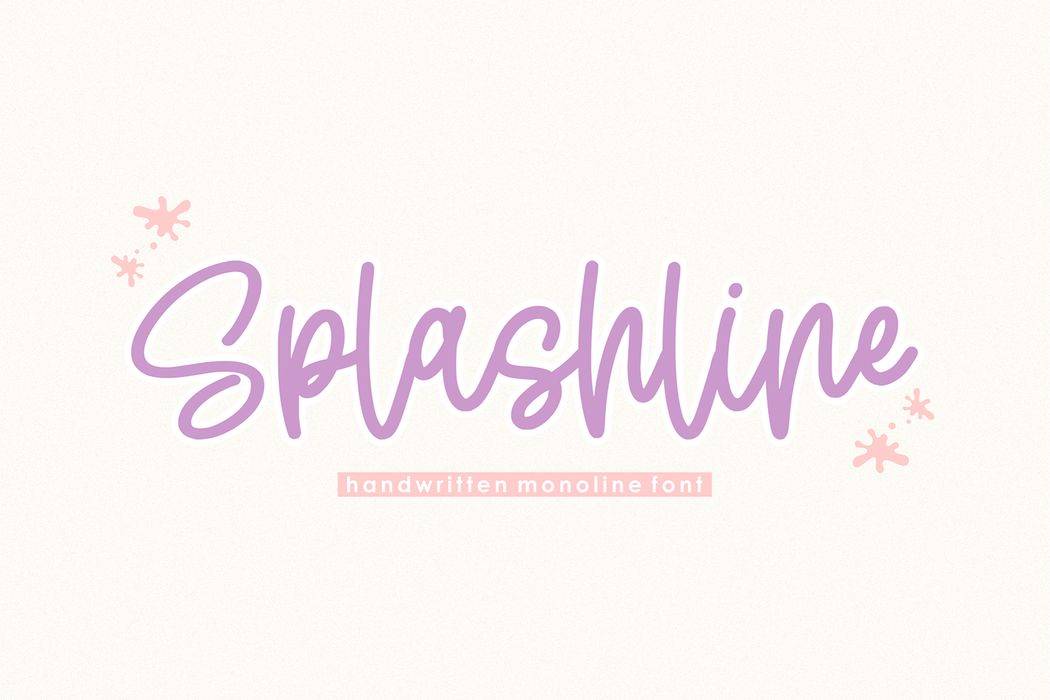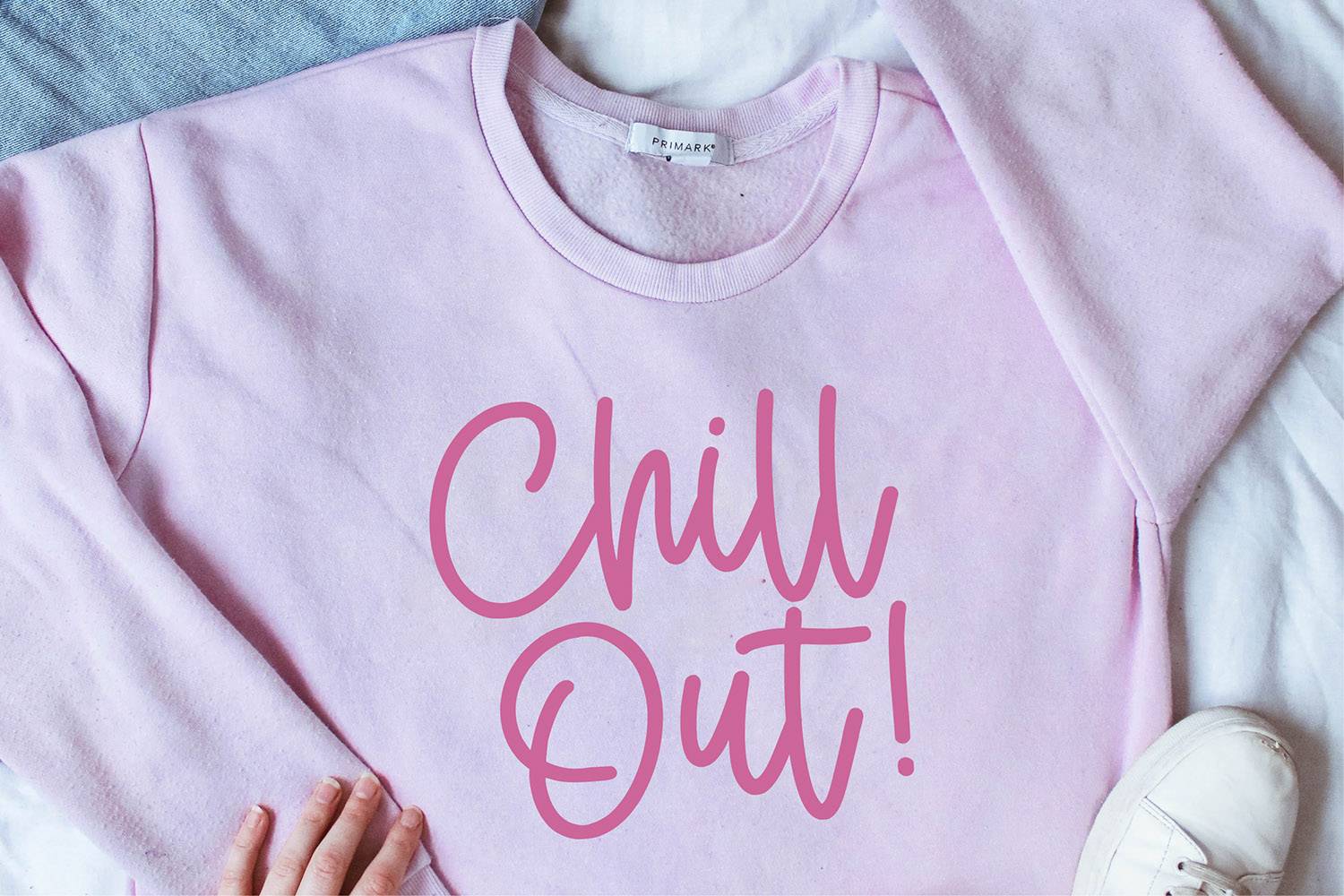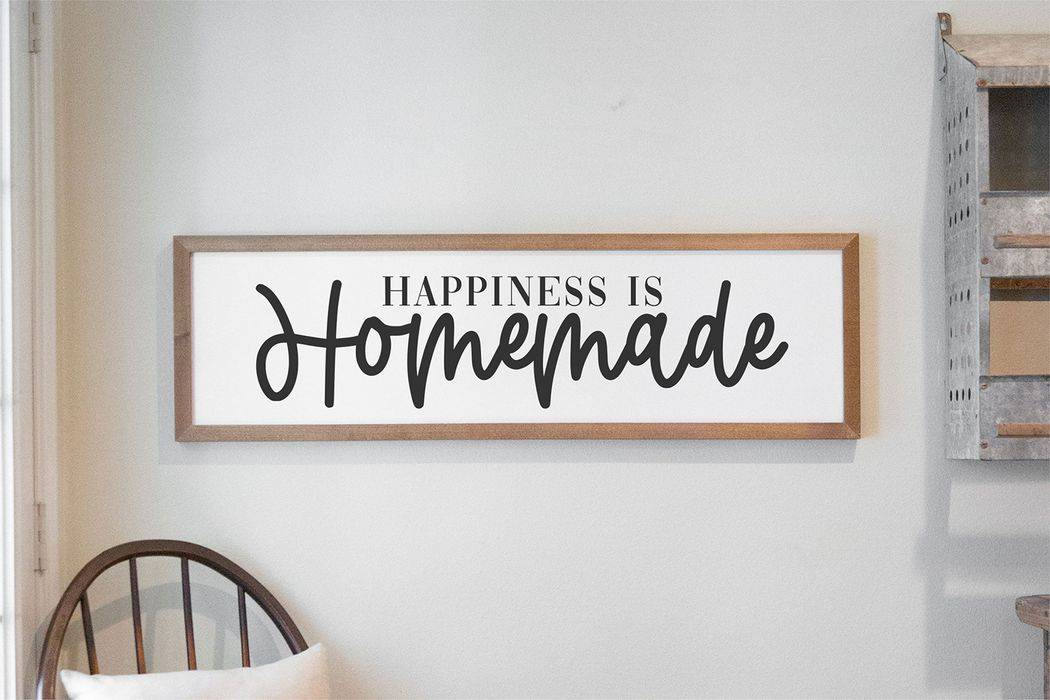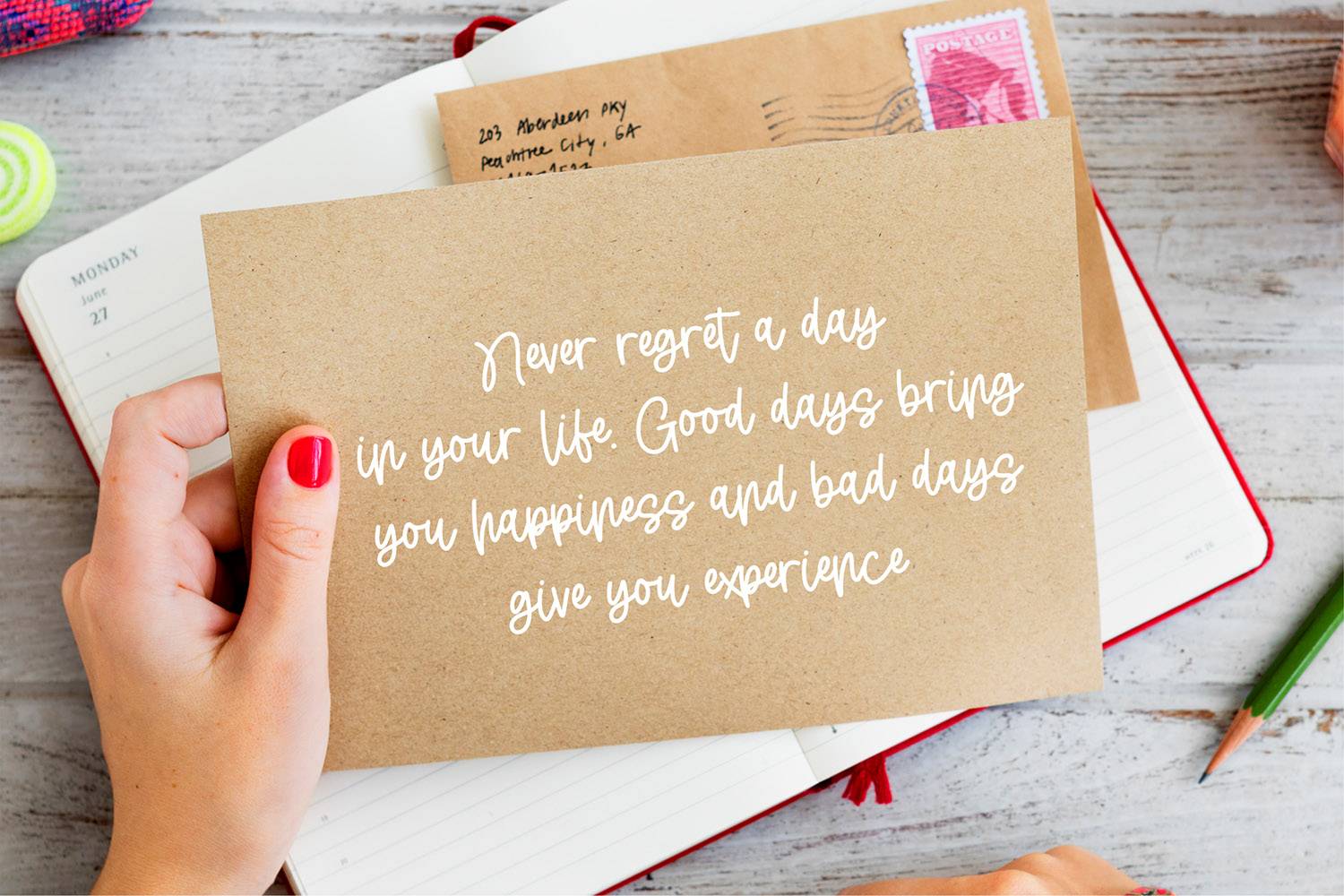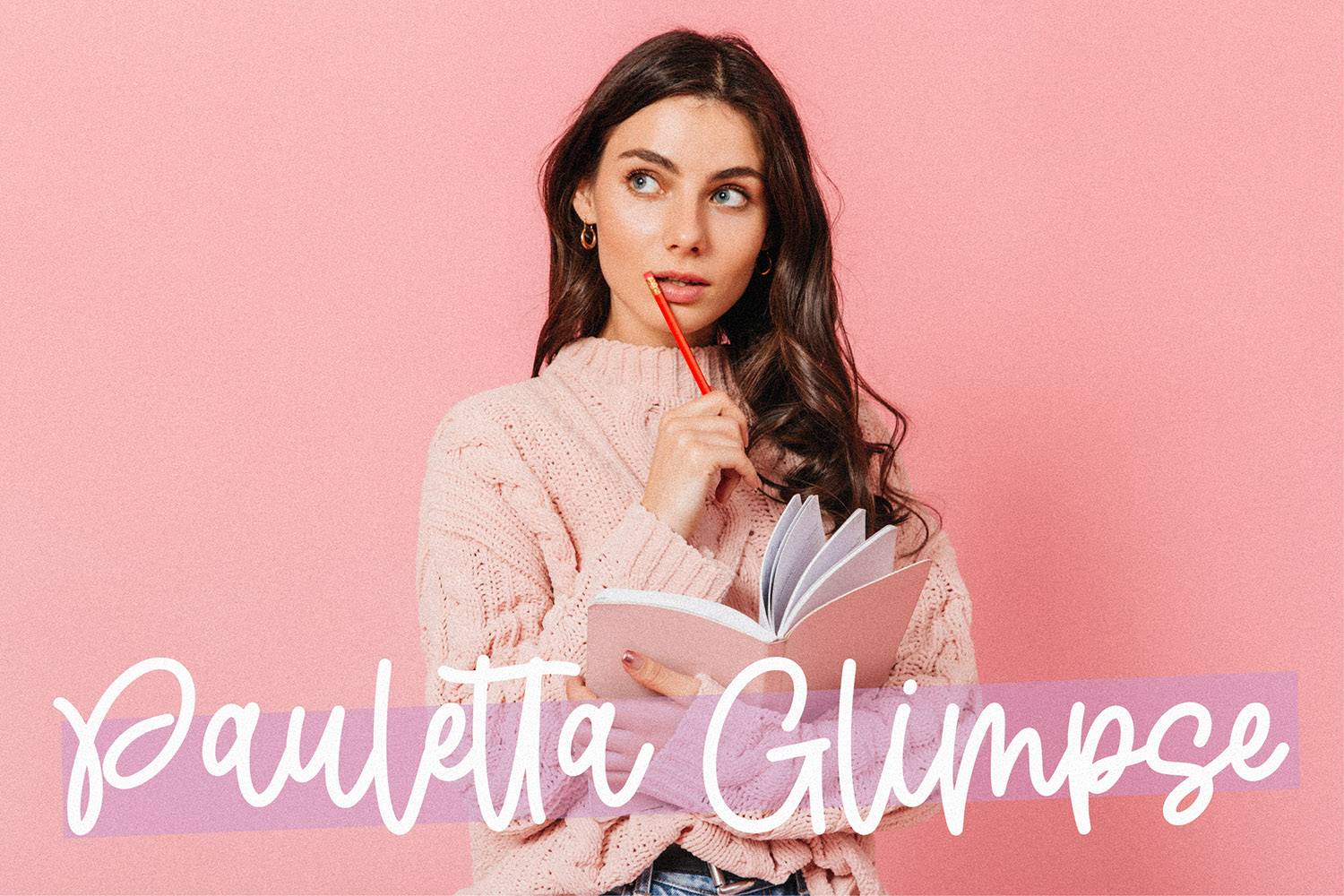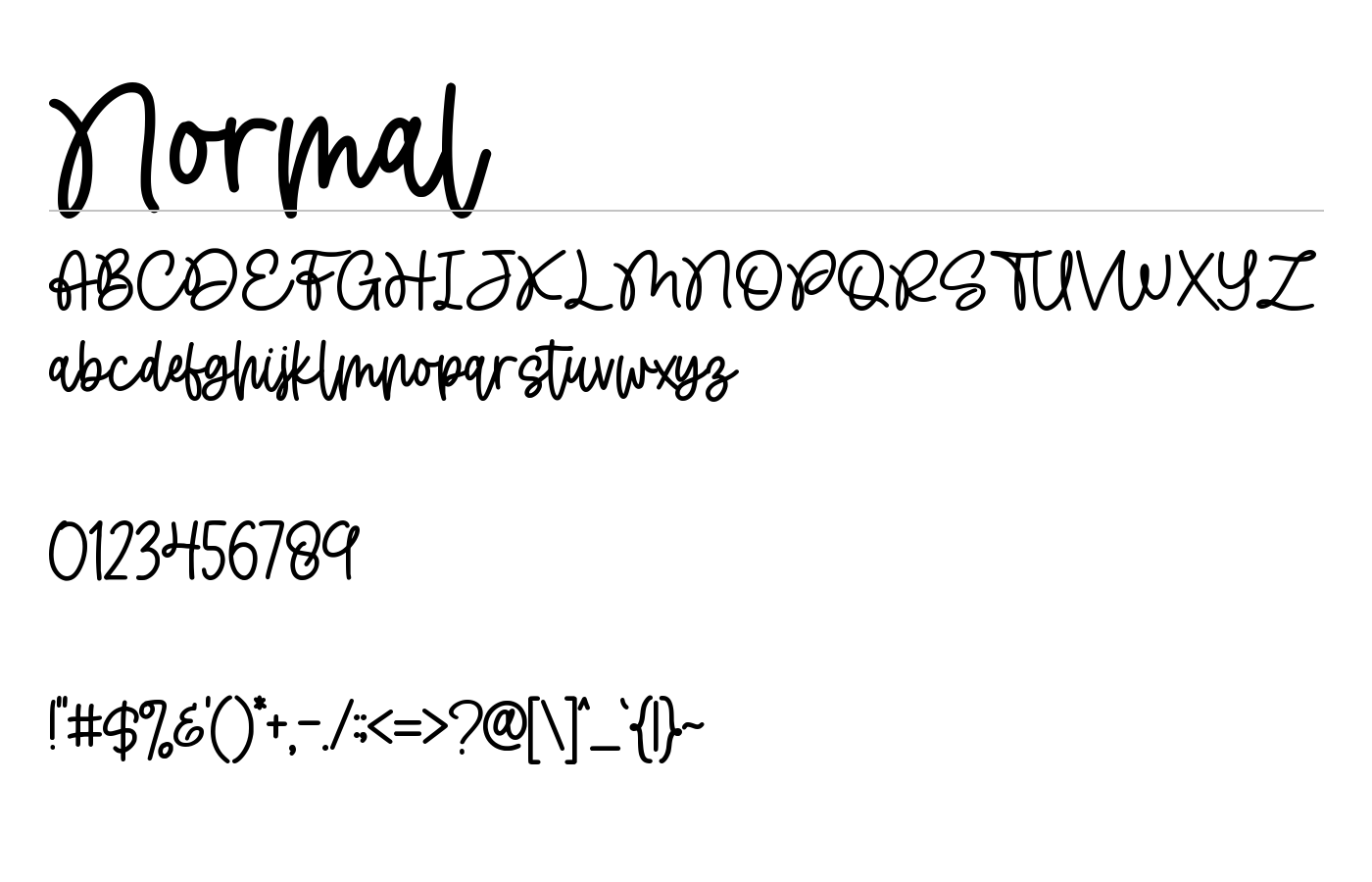
Splashline is a playful, handwritten script font with a casual and friendly personality. Its narrow, airy letterforms feature smooth, flowing lines and a consistent light weight that create an approachable and informal feel, ideal for creative and personal projects. This font works beautifully for greeting cards, branding, social media posts, and any design needing a warm, handwritten touch that feels lively and unique.
Splashline Font
About Splashline Font